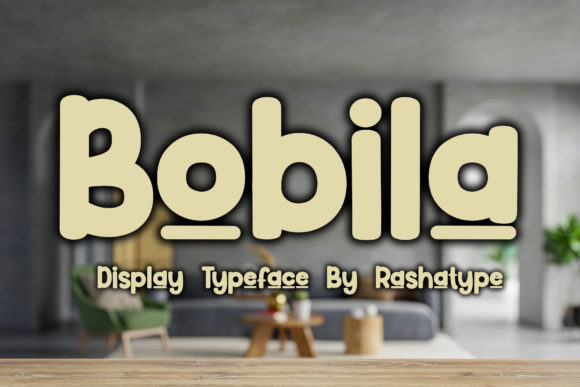
The Ultimate Guide to Bobila Font: A Cool and Casual Display Font
I’ll never forget the time I was working on a project for a trendy coffee shop, and I just couldn’t find the right font to capture their laid-back vibe. That’s when I stumbled upon Bobila Font, and it instantly became my go-to choice. In this article, I’ll share my love for Bobila, its features, and how to make the most of it in your designs.
An Honest Review of Bobila Font
So, what makes Bobila so special? Let’s dive into the good stuff and a few quirks I’ve noticed.
What I Love About Bobila ✨
• 💥 **Unique Character**: Bobila has a distinct, cool vibe that sets it apart from other display fonts.
• ✅ **Highly Versatile**: It works amazingly well on posters, flyers, and prints, making it perfect for various design projects.
• 🎨 **Great for Branding**: The font’s casual feel makes it ideal for brands looking for a friendly, approachable image.
• 👍 **Easy to Read**: Despite its stylized look, Bobila remains clear and legible, even at smaller sizes.
• ⚠️ **Limited Formality**: Bobila’s casual nature might not make it the best choice for very formal or traditional designs.
• ⚠️ **Overuse of OpenType Features**: While Bobila offers some great OpenType features, overusing them can make the text harder to read.
The Backstory of Bobila Font
Bobila was designed with the intention of creating a font that feels both modern and approachable. The designer aimed to craft a font that would be versatile enough for various design projects while maintaining a unique character. The result is a font that’s perfect for designers looking to add a cool, casual touch to their work.
Font Name Bobila Font
Author Rashatype
Q: What makes Bobila Font unique?
Bobila Font stands out due to its cool and casual vibe, making it perfect for creative and friendly designs.
Q: Is Bobila suitable for body text?
While Bobila is primarily a display font, it can be used for short paragraphs. However, for longer body text, a more traditional font might be more readable.
Q: Does Bobila support OpenType features?
Yes, Bobila supports some OpenType features, which can be accessed in compatible design software like Adobe Illustrator and Canva.